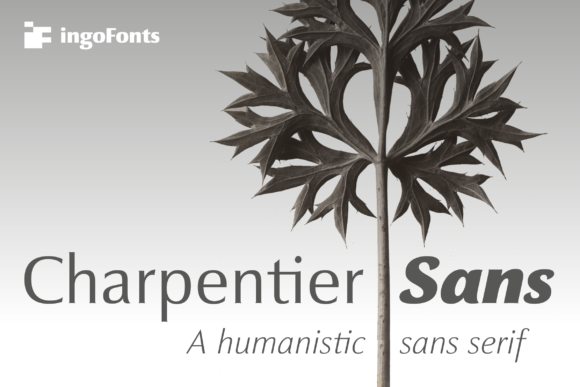
Unleashing Timeless Elegance with Charpentier Sans Pro Font
There’s nothing quite like the feeling of creating something new and beautiful. It’s that moment when the words flow effortlessly onto the page, and the design starts to take shape. For designers, this is what it’s all about – bringing ideas to life with the perfect combination of form and function.
One font that has been a trusted companion for many designers is the classic Charpentier Sans Pro Font. With its timeless appeal, it’s a versatile choice for a wide range of projects, from corporate identities to editorial content. Whether you’re looking to add a touch of sophistication or a dash of modernity, Charpentier Sans Pro Font is an excellent choice. Its clean lines and balanced proportions make it a valuable asset for designers seeking to create lasting impressions.
Charpentier Sans Pro Font Key Features
- Font Size: The font family includes 6 weights: Thin, Light, Regular, Medium, Bold, and Black, each with its unique characteristics.
- Language Support: The font family supports a wide range of languages, including Latin, Cyrillic, Greek, and many others.
- Unique Characteristics: Charpentier Sans Pro Font features a modern sans-serif design with a strong emphasis on legibility and readability, making it an ideal choice for body text and titles.
- Kerning and Ligatures: The font family includes advanced kerning and ligature support, ensuring smooth and harmonious typography.
Charpentier Sans Pro Font Review
As a designer, I was excited to dive into the world of Charpentier Sans Pro font. I’ve got to say, this font has some ✨ standout qualities that caught my attention.
The first thing I noticed was the versatility of this font. It’s suitable for a wide range of applications, from digital interfaces to print materials. The font is designed to be clean and modern, making it perfect for creating a sleek and professional look.
Here are some of the key features that I liked about Charpentier Sans Pro:
- ✨ High legibility: This font is easy to read, even at small font sizes.
- ✨ Modern design: The font’s clean and minimalist aesthetic makes it perfect for modern branding and design.
- ✨ Versatility: As I mentioned earlier, this font can be used for a wide range of applications.
However, as with any font, there are some limitations to consider:
- ⚠️ Limited expressiveness: While the font is clean and modern, it may lack the expressiveness and personality of other fonts.
- ⚠️ May not be suitable for highly creative projects: While Charpentier Sans Pro is perfect for modern and professional designs, it may not be the best choice for highly creative or artistic projects.
Overall, I think Charpentier Sans Pro is a solid choice for designers looking for a clean and modern font. While it may have some limitations, it’s a great option for a wide range of applications. I’d definitely recommend giving it a try.
Charpentier Sans Pro Font is ideal for creating a modern and minimalist design. Use it for headings, titles, and body text in a variety of projects, such as:
Getting the Most Out of Charpentier Sans Pro Font
To get the most out of Charpentier Sans Pro Font, use it in combination with other fonts, such as serif fonts for body text and sans-serif fonts for headings. Experiment with different font sizes, colors, and styles to create a visually appealing design.